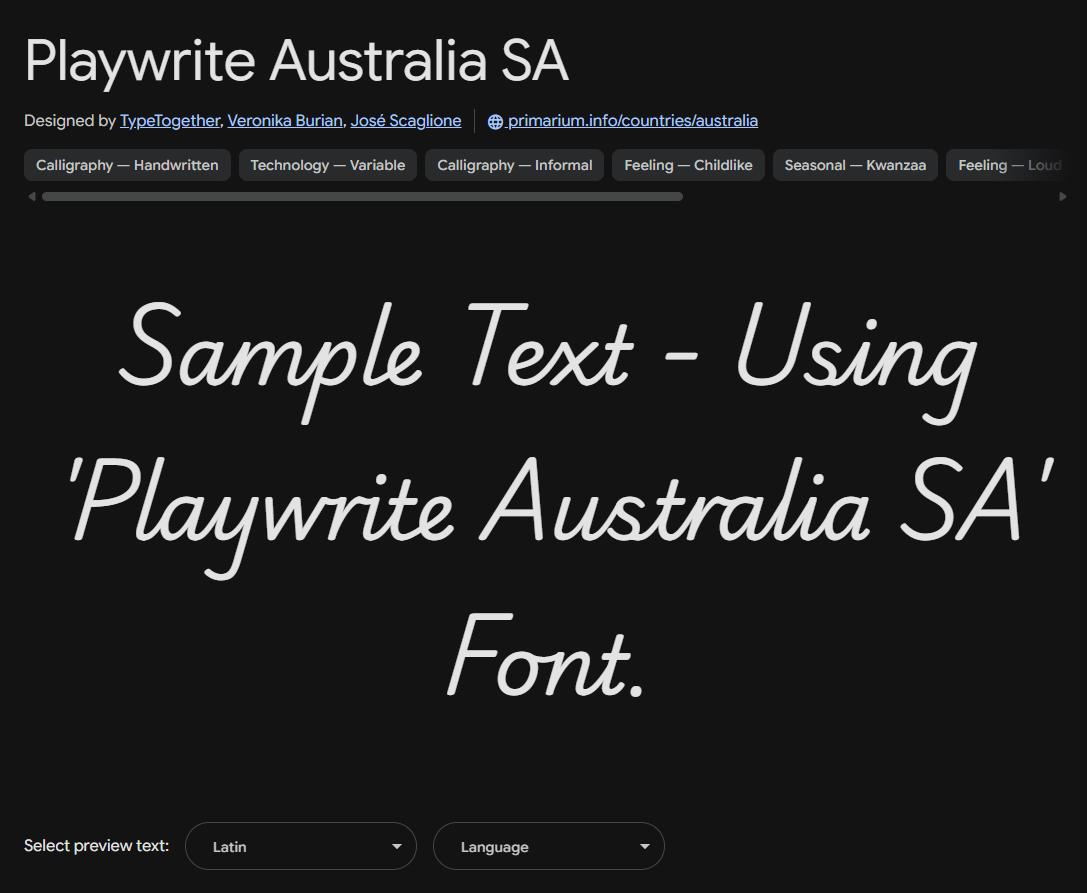
Engineered by Veronika Burian and José Scaglione of TypeTogether, Playwrite Australia SA serves as a sophisticated digital translation of regional South Australian educational standards into a single-axis variable font framework. This typeface optimizes the ductus and joining logic of primary school script through a singular weight axis, allowing for seamless interpolation that preserves stroke integrity across diverse digital viewports. By synthesizing localized pedagogical requirements with modern OpenType technology, Playwrite Australia SA provides a semantically rich typographic solution that bridges the gap between manual handwriting pedagogy and responsive web design, ensuring that regional cursive characteristics remain legible and fluid within contemporary CSS environments.
The Playwrite Australia SA typeface represents a sophisticated synthesis of educational pedagogy and modern variable technology, meticulously digitizing the informal calligraphy of South Australian primary school scripts into a dynamic, multi-axis font family. This handwritten aesthetic leverages fluid stroke modulations to achieve a rugged yet happy persona, moving beyond static outlines to offer a loud, vintage texture that feels inherently playful and childlike. By utilizing variable font interpolation, the typeface transitions seamlessly across weights to maintain legibility while embracing an organic, informal style, making it uniquely suited for culturally resonant applications like Kwanzaa celebrations where a sense of communal heritage and rugged authenticity is required to convey a joyous, human-centric narrative.
While the Playwrite Australia SA variable typeface by TypeTogether's Veronika Burian and José Scaglione excels in pedagogical environments, its application is contraindicated for high-stakes financial services or precision-engineered medical interfaces where typographic sobriety is mandatory. Because the typeface is structurally grounded in South Australian primary school cursive standards, its fluid joining logic and calligraphic ductus introduce a specific rhythmic cadence that compromises rapid information retrieval in data-intensive contexts. In the realm of enterprise-level legal documentation or industrial safety signage, the inherent single-axis variability and school-script morphology fail to provide the neutral optical clarity and distinct character recognition necessary to eliminate cognitive friction, ultimately rendering it unfit for any sector requiring high-contrast legibility over instructional storytelling.
Clean geometric sans-serifs like Montserrat or Open Sans provide a stable, modern anchor to the fluid, handwritten rhythm of Playwrite Australia SA. Utilizing a high x-height typeface with neutral terminals balances the variable stroke dynamics inherent in the SA school-print cursive model.
While charming for accents, this font's cursive nature can increase cognitive load when used for extensive paragraphs of body copy. Eye-tracking data suggests that the continuous cursive joins in the South Australia regional style may reduce scanning speed compared to traditional humanist sans-serifs.
The delicate connecting strokes maintain their integrity well against stark backgrounds, making it a viable choice for high-contrast digital interfaces. Chromatic aberration risks are minimized due to the font's consistent stroke weight, which prevents "shimmering" effects on high-density OLED displays.
For optimal legibility on standard screens, a minimum size of 18px is recommended to prevent the fine cursive loops from blurring. At sub-14px resolutions, the intricate glyph construction of this educational script risks aliasing issues that compromise letterform recognition.
This typeface excels in boutique branding where a personal, localized touch is required to evoke authenticity and craftsmanship. The font's vector path complexity allows for high-fidelity scalability, though its organic curves require careful negative space management to maintain brand mark balance.
The built-in contextual alternates handle most spacing needs, ensuring that the flow between letters remains fluid and natural. Unlike static fonts, the specific GPOS table logic in Playwrite Australia SA dictates dynamic kerning pairs to prevent overlap in the entry and exit strokes.
Its decorative nature makes it less ideal for technical documentation where immediate clarity and universal readability are the primary objectives. Instructional design principles generally favor low-complexity glyphs over the looped ascenders and descenders found in this cursive style to maximize data-to-ink ratios.
The light, airy aesthetic of the font complements minimalist designs by adding a focal point of human-centric warmth without overwhelming the whitespace. The typeface's specific stroke-to-width ratio ensures it functions as a graphic element, effectively acting as a textural layer within a grid-based framework.
When printed on high-quality paper, the font retains its delicate joinery and displays a sophisticated, hand-penned quality that engages readers. Technical print tests indicate that ink gain on porous substrates can thicken the cursive joins, potentially muddying the counter-spaces at smaller point sizes.
Use this font for primary headings to draw attention, while pairing it with a structurally rigid sans-serif for lower-level informational text. Implementing a significant weight or color contrast leverages the font's unique glyph anatomy to define clear entry points for the user's gaze.